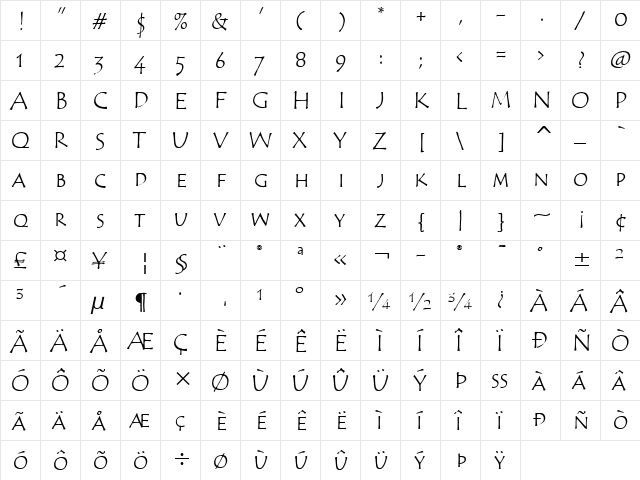
Tempus Sans SC ITC Bold
Design Context for Tempus Sans SC ITC Typeface
Tempus Sans SC ITC offers clean, dependable letterforms without strong stylistic allegiance, making it a practical choice for designers who need flexibility. The heavy weight commands attention and anchors typographic hierarchies.